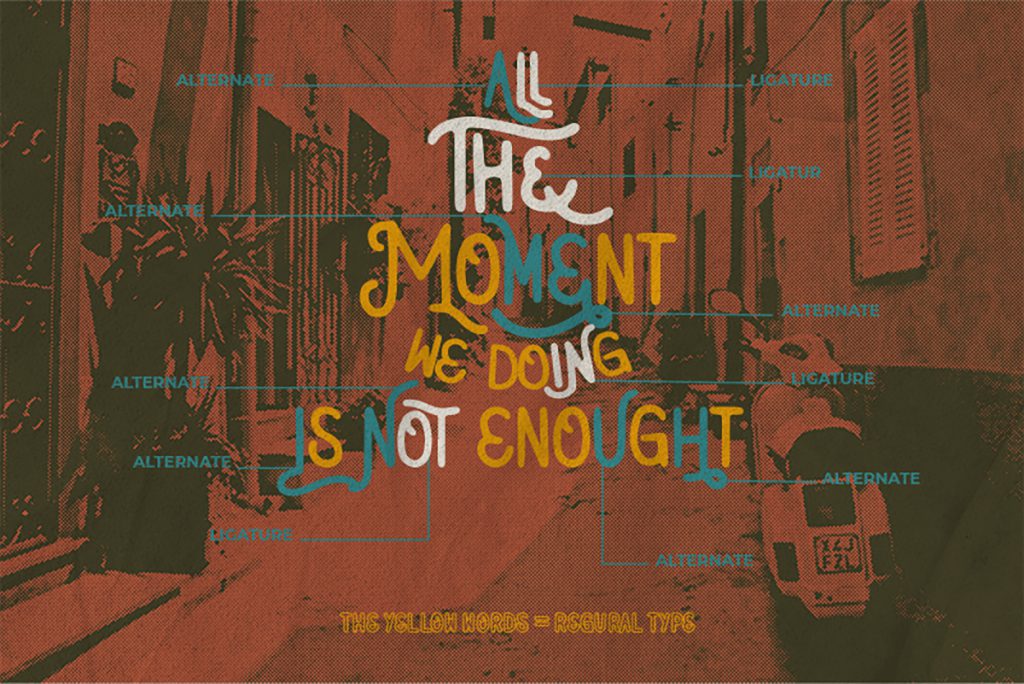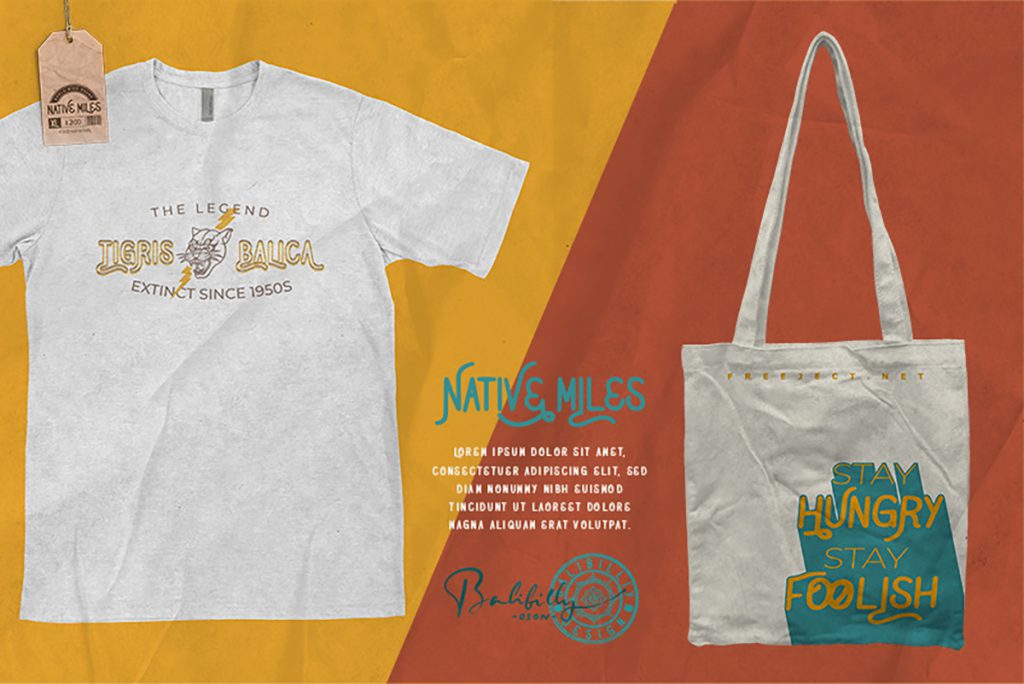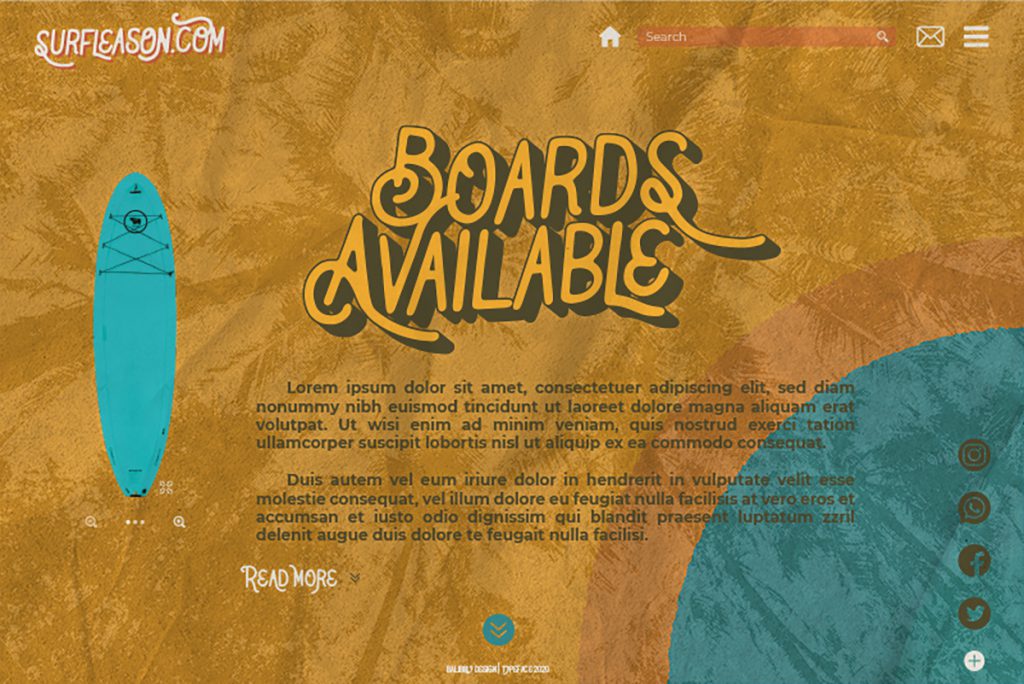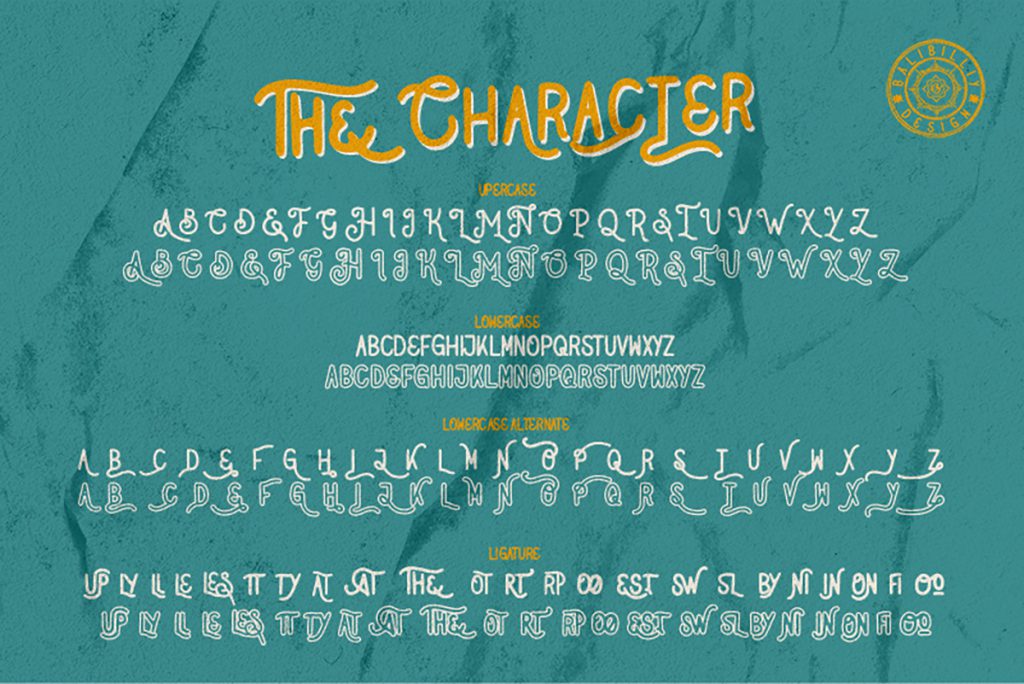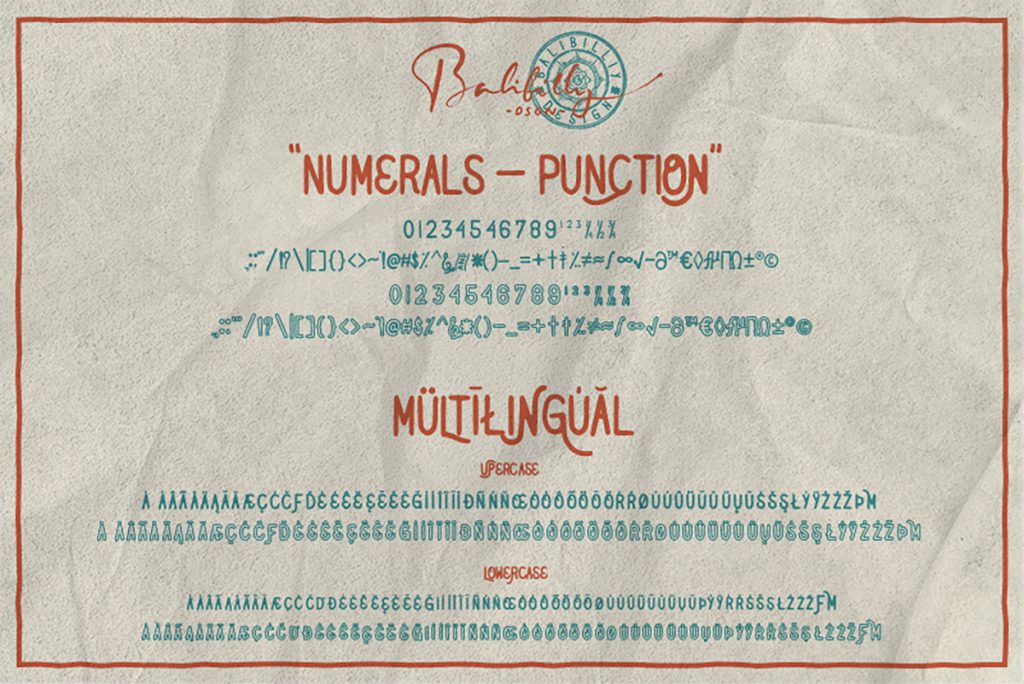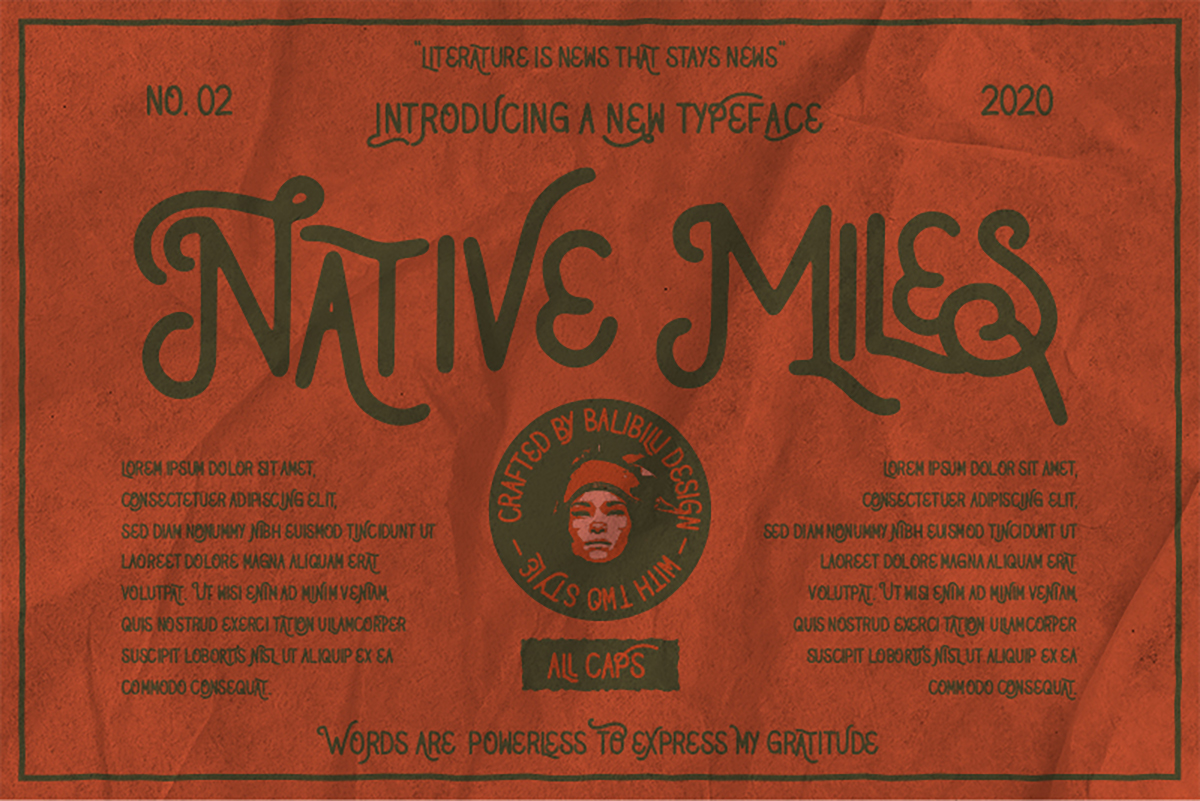
Native Miles: A Vintage Font
Native Miles is a vintage display sans serif font by Balibilly Studio. This font is coming to those designers and company that need a retro vintage style and unique text. Also, it provides a perfect balance of vintage retro style lettering for your design projects
Author: Balibilly Studio
Type: Sans Serif